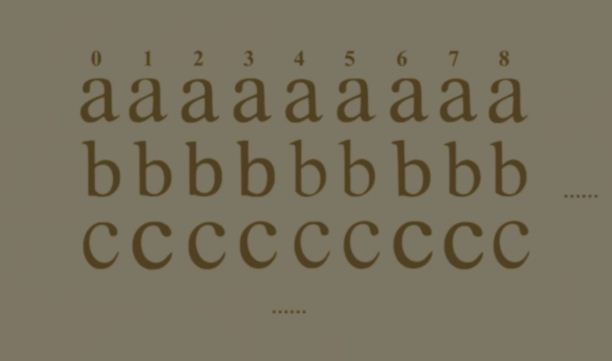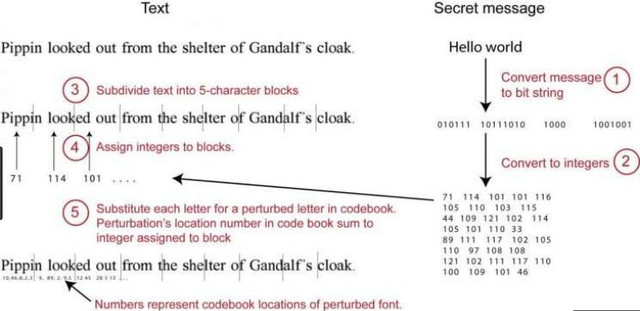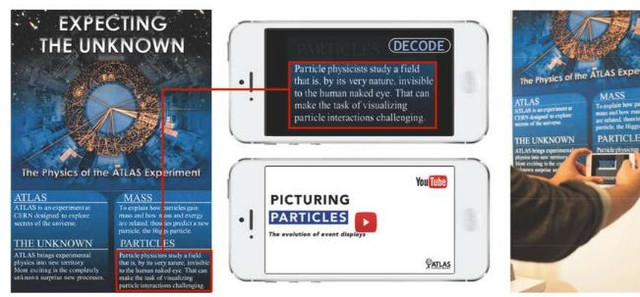
THIS FONT ALLOWS YOU TO HIDE SECRET MESSAGES
At first glance, the text is absolutely banal. Yet it contains a secret code thanks to an algorithm that changes the letters in a way undetectable to the naked eye. This is how it works.
The most twisted secret codes have been imagined by spies since the dawn of time. During the second world war, the Germans had thus developed the Enigma crypter, which substituted letters by others thanks to an ingenious system of rotors. The encryption developed by Changxi Zheng and two students from Columbia University and published on May 10, 2018 is even more subtle, since it can be used with any text, image or file, and preserves the same encryption when the document is scanned, printed, or converted to another format. It is for example possible to photograph the text with a smartphone and send it by text to someone who can read the hidden message using the decryption software.
It is based on a new font called FontCode. It introduces modifications of the shape of the letters imperceptible to the naked eye: width of the line, height of the letters like h or t, attenuation of the curves of the round letters like o, p or d ...). The message to be transmitted is first converted into a series of digits, each digit being assigned to a block of five letters in a lambda text. The letters of this text are then modified by an algorithm, which chooses an alteration among the hundreds of possibilities. To decrypt the encoded message, the algorithm identifies the place of the letters that have been tampered with and outputs the associated digit. "The hidden information, imperceptible to the human eye, is readable by a machine as with a barcode or QR code reader, except that its presence is invisible," said Changxi Zheng.
CORRECTOR TO RESTORE MISSING LETTERS
Thanks to a system of auto-correction, the algorithm is even able to restore the message when some letters are missing (for example, when the text has become more vague when an image is converted into a lower resolution). Decryption remains possible with a loss rate of 25% (that is, when 25% of corrupted letters are not recognized). The font FontCode works with the most common fonts like Times New Roman, Helvetica or Calibri, and can be used with classic editing software (Word, Photoshop, Illustrator ...).
Beyond espionage, researchers are considering multiple possible applications for FontCode: QR codes invisible on packaging or posters, authentication of contracts or legal acts, protection against the falsification of documents, etc.